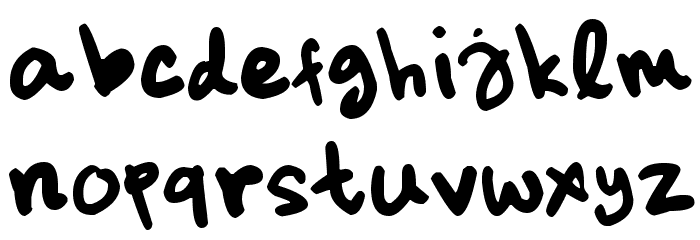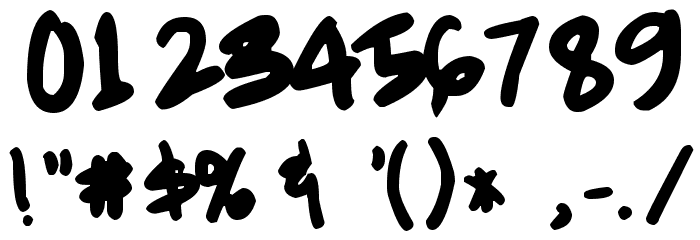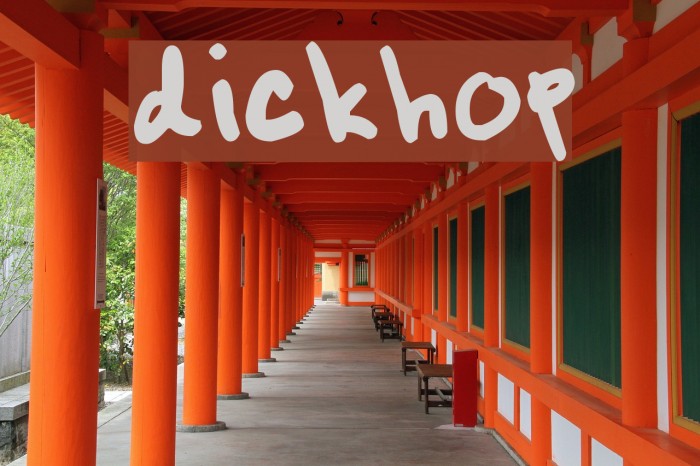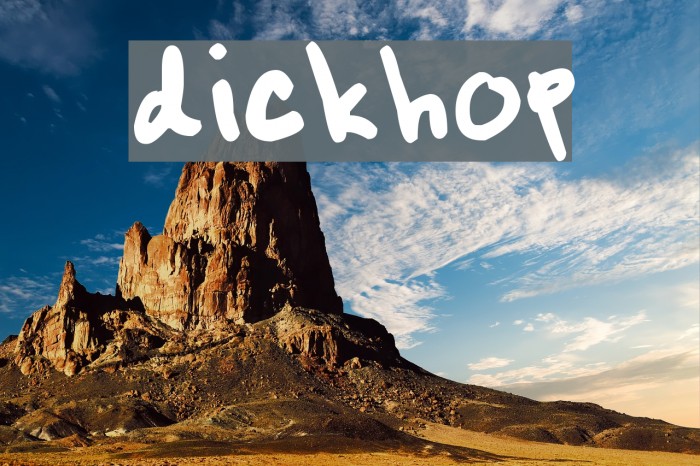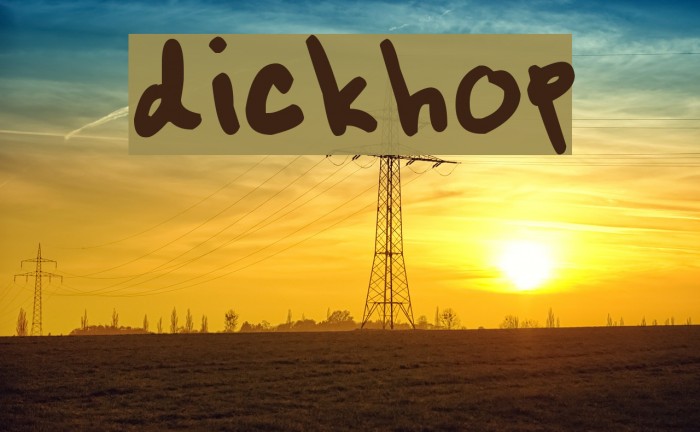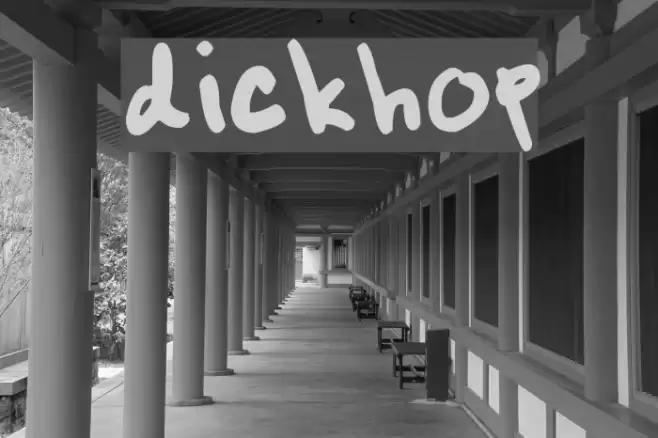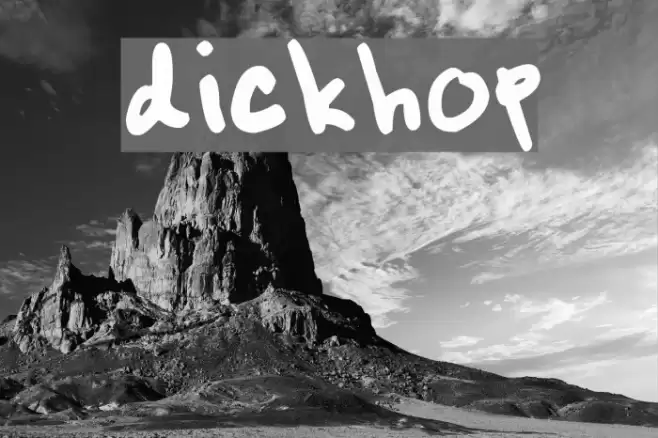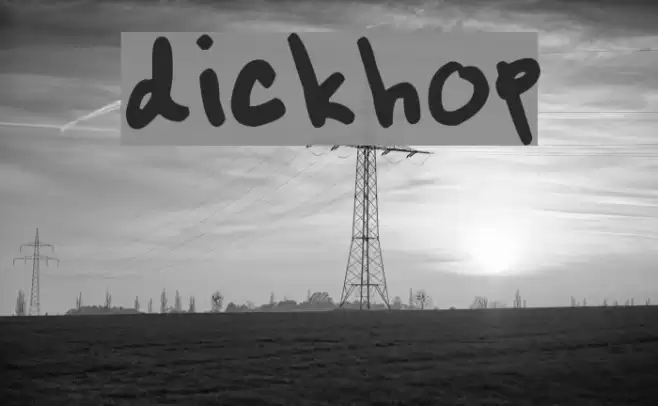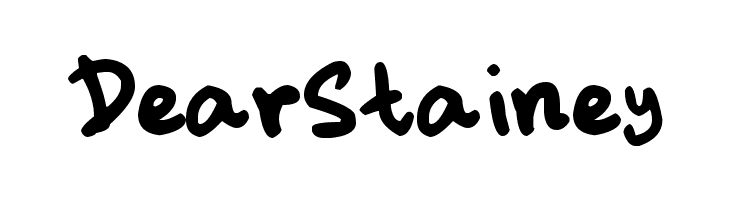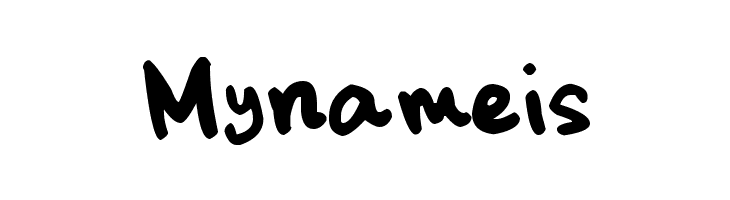
dickhop Font
This font exhibits a playful and energetic handwritten style, characterized by its bold and dynamic strokes. The letters are slightly irregular, giving it a casual and informal appearance. The uppercase and lowercase letters maintain a consistent style, with rounded edges and a slightly tilted orientation, enhancing its lively feel. The numerals and special characters follow the same aesthetic, ensuring uniformity across all elements. This font's unique personality makes it stand out, offering a sense of creativity and spontaneity.
A bold, playful handwritten font with dynamic strokes and a casual style.
- Proposed Projects: Ideal for creative projects such as greeting cards, posters, children's books, and branding materials that require a personal touch.
- Overall Style: Playful, Casual
- Use Case: Logos, Posters, Greeting Cards